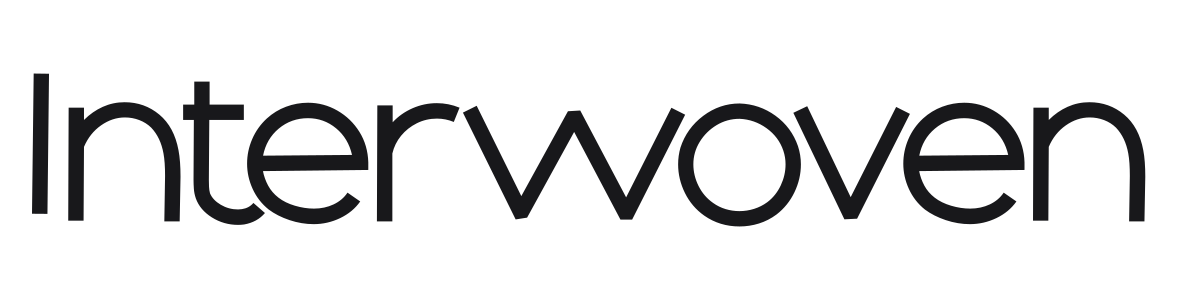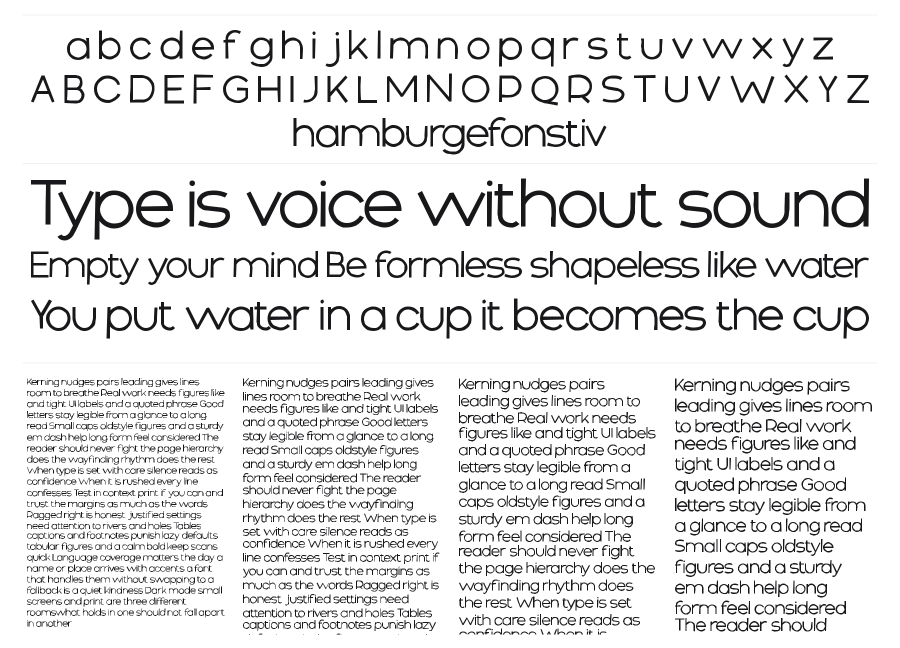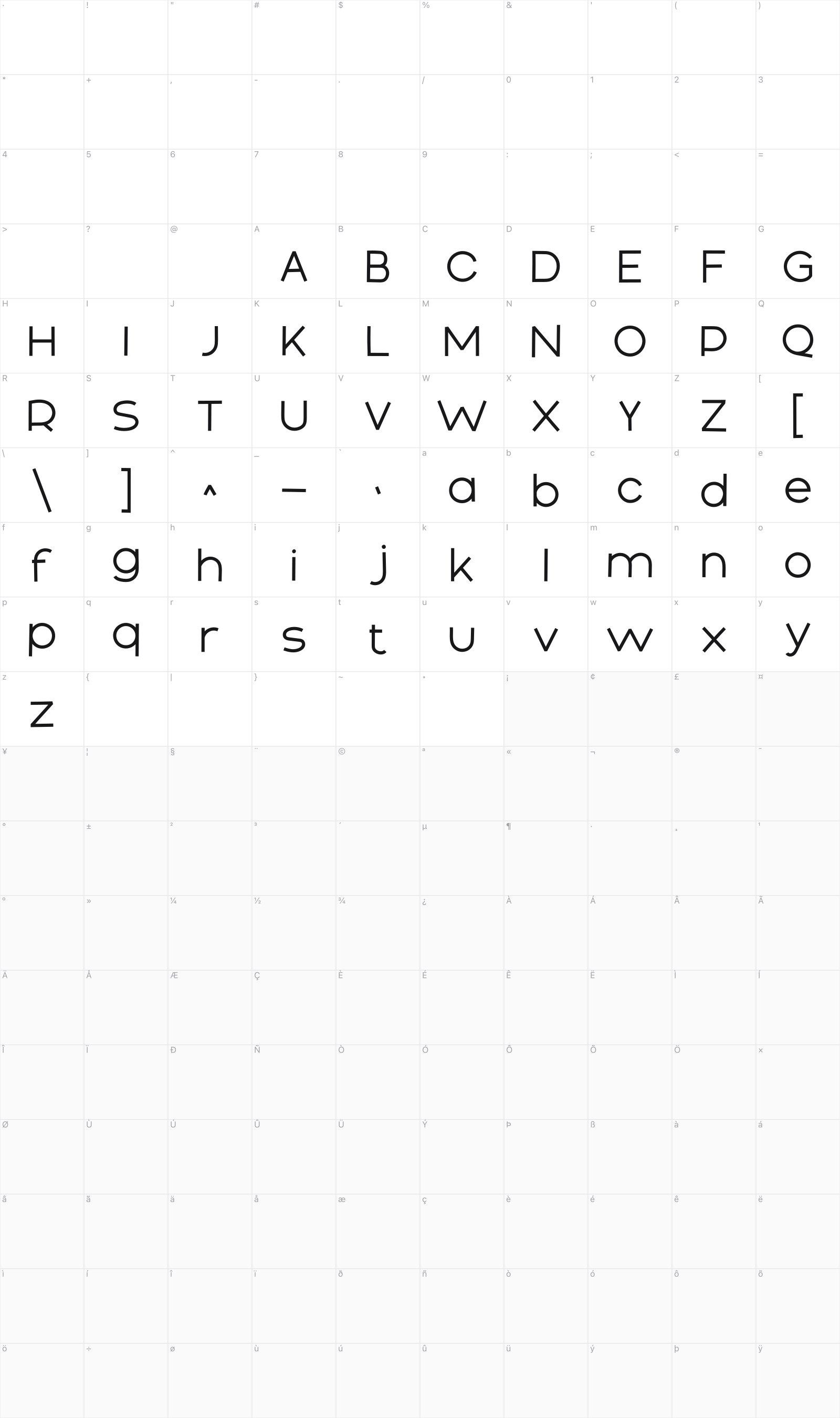
Interwoven
by Hanna Bie
Interwoven is a contemporary geometric sans-serif with soft rounded terminals and a smooth, even stroke weight. Its wide, open proportions give it a light and approachable character that works naturally in branding, packaging, and editorial contexts. The design sits comfortably between clinical precision and casual warmth.